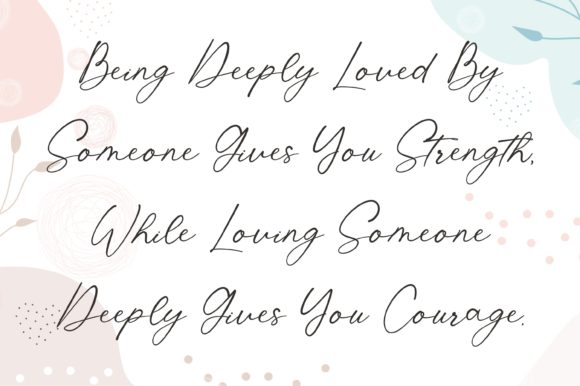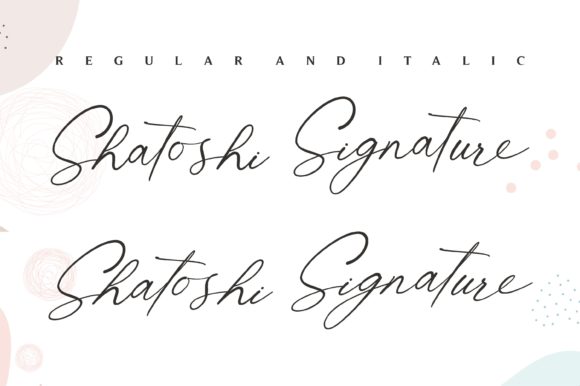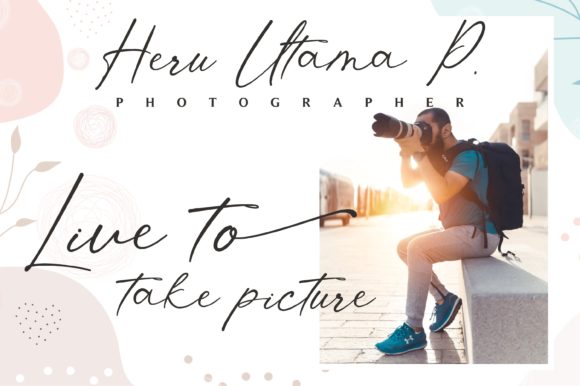
Introduction to Shatoshi Signature Font
Have you ever been working on a creative project, pouring your heart and soul into a design, only to find that it’s missing that special something that makes it truly pop? I’m sure many designers can relate to this feeling. Sometimes, all it takes is the right font to elevate your design and take it to the next level. That’s where the Shatoshi Signature Font comes in – a stunning, delicate handwritten font that adds a touch of elegance to any project.
This high-quality font is perfect for designers looking to add a personal touch to their work. With its clean, thin, and smooth vibe, it’s ideal for branding, product packaging, invitations, quotes, and more. Whether you’re working on a logo, poster, or t-shirt design, the Shatoshi Signature Font is a valuable resource that can help you create something truly special.
Key Features of Shatoshi Signature Font
- Unique, Hand-Drawn Design: The Shatoshi Signature Font features a distinctive, hand-drawn aesthetic, making it perfect for creative projects that require a personal touch.
Honest Review: Shatoshi Signature Font
I recently stumbled upon the Shatoshi Signature Font while searching for a unique design resource for a creative project. As a designer, I was excited to see if this font would deliver the high-quality results I was looking for.
Here’s what I found:
- ✨ The Shatoshi Signature Font has a beautiful, elegant design that adds a touch of sophistication to any project.
- ✨ The transparent background feature allows for seamless integration with other design elements.
- ⚠️ The font is only available in a single weight, which may not be ideal for projects that require multiple font weights.
- ⚠️ The font doesn’t come with a comprehensive character set, which may limit its use in certain applications.
Overall, I was impressed with the Shatoshi Signature Font’s design and functionality. While it may not be perfect, it’s a great addition to any designer’s toolkit. With a little creativity, I can see this font being used in a wide range of creative projects.
Design Resource Tips
For the best results, use the Shatoshi Signature Font in conjunction with a high-quality image or background to create a visually appealing design. You can also experiment with different font sizes and colors to add emphasis to your text.
The Shatoshi Signature Font is ideal for various creative projects, including logos, business cards, and marketing materials. It’s also a great design resource for creating eye-catching social media posts and presentations.